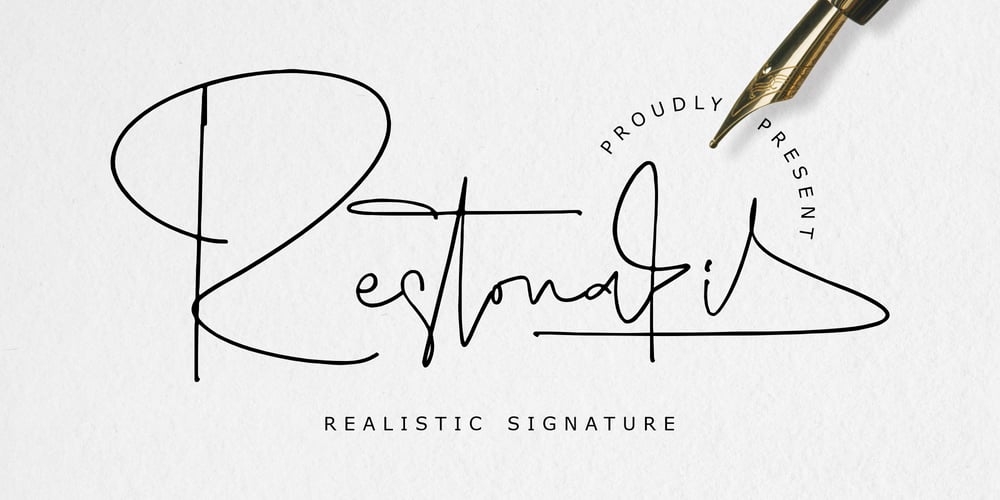
Restonasi
Restonasi font
Restonasi Font Family was designed by Heru Utama Putra and published by Letterena Studios. Restonasi contains 2 styles and family package options. Restonasi is a realistic signature script font. Its exquisite and stylish characters will help you create stunning logos, business cards, wedding invitations, and more!